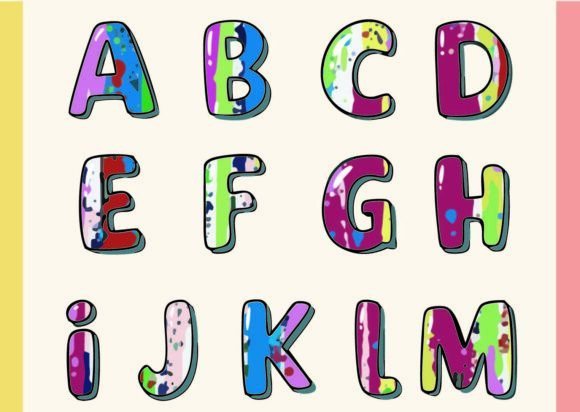
Unlock the Vibrancy of Heidi Font
Have you ever stared at a blank canvas, feeling like a blank slate, waiting for inspiration to strike? That’s exactly what happened to me last weekend. I was experimenting with colors, trying to find the perfect palette for a new design project. And then, it hit me – the vibrant world of color fonts. I discovered Heidi Font, a game-changing tool that’s about to revolutionize the way we think about typography.
Heidi Font is a color font (Opentype-SVG) that brings a new level of excitement to digital design. With every single glyph featuring a unique set of colors, this font is a designer’s dream come true. Each glyph is a miniature masterpiece, with complex sets of paths and connections that can be used to create stunning visual effects. Whether you’re a seasoned designer or just starting out, Heidi Font is an invaluable tool that will take your designs to the next level.
Heidi Font Key Features
- Font Family: Heidi is a sans-serif font family designed by Robin Nicholas and Patricia Saunders.
- Unique Characteristics: Heidi font is known for its friendly, approachable feel, with a distinctive x-height and letter spacing that makes it easy to read in both body text and headlines.
Heidi Font Review
At first glance, Heidi Font seems to be a charming, playful typeface. ✨ It’s perfect for creating a whimsical atmosphere in your designs. The font’s unique blend of vintage and modern elements makes it a great choice for children’s books, advertisements, or even editorial content. The letterforms are well-designed, with each character possessing a distinctive character that adds to the overall charm.
- Unique character designs
- Perfect for whimsical and playful designs
- Well-suited for children’s books, advertisements, and editorial content
However, Heidi Font also has some limitations. ⚠️ The font’s irregularities can make it difficult to read in certain situations. Additionally, the font’s small caps may not be suitable for all types of text. Furthermore, the font’s availability in various weights and styles is limited, which can make it less versatile than other fonts.
- Difficult to read in certain situations
- Limited availability in various weights and styles
- Small caps may not be suitable for all types of text
Overall, Heidi Font is a charming and unique typeface that can add a touch of whimsy to your designs. While it has some limitations, it’s still a great choice for certain projects. Just be aware of its potential drawbacks and use it accordingly.
Heidi Font is a great choice for creating a vintage or retro aesthetic in your Canva designs.
Heidi Font is a great choice for creating a unique and eye-catching title or heading in your Adobe designs.
Heidi Font is a great choice for creating a distinctive and memorable title or heading in your PowerPoint or Word documents.
Heidi Font is a versatile font that can be used in a variety of design contexts, including:
- Vintage or retro-themed designs
- Wedding invitations or stationery
- Food or restaurant branding
- Travel or
Alternatives to Heidi Font
Source Sans Pro
Source Sans Pro is a sans-serif typeface designed by Paul D. Hunt. It’s a highly legible font suitable for body text and is available in multiple weights. It’s an excellent choice for digital products, websites, and applications. Source Sans Pro is more versatile and modern compared to Heidi Font, with a more open and airy feel.
Open Sans is a modern sans-serif typeface designed by Steve Matteson. It’s highly legible and suitable for body text, with a clean and friendly feel. Open Sans is a popular choice for digital products, websites, and applications. Compared to Heidi Font, Open Sans has a more rounded feel and is more suitable for modern and sleek designs.
Merriweather is a classic serif typeface designed by Eben Sorkin. It’s suitable for body text and is available in multiple weights. Merriweather has a traditional and elegant feel, making it an excellent choice for print materials, such as books and magazines. Compared to Heidi Font, Merriweather has a more traditional and formal feel, making it more suitable for formal and classic designs.